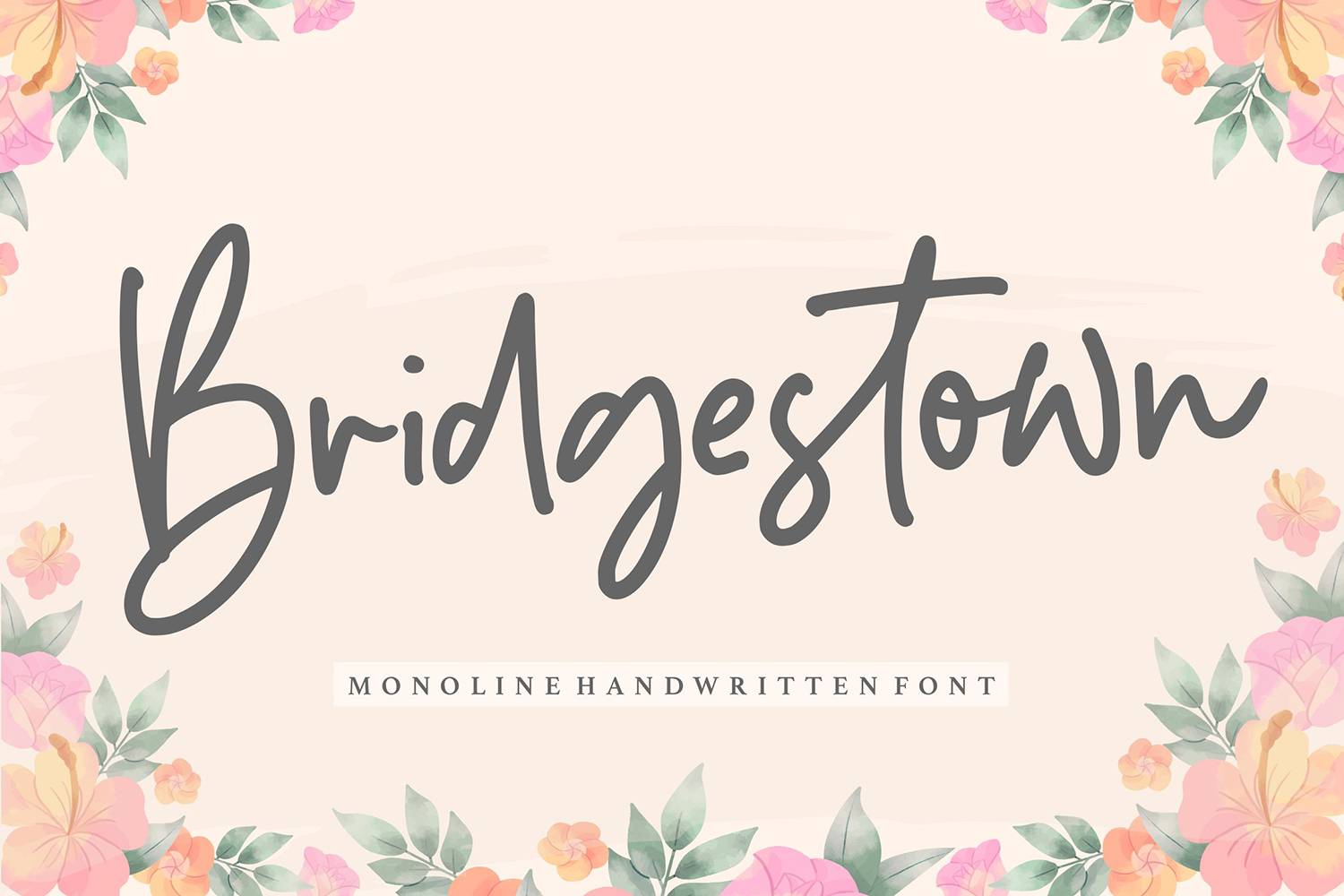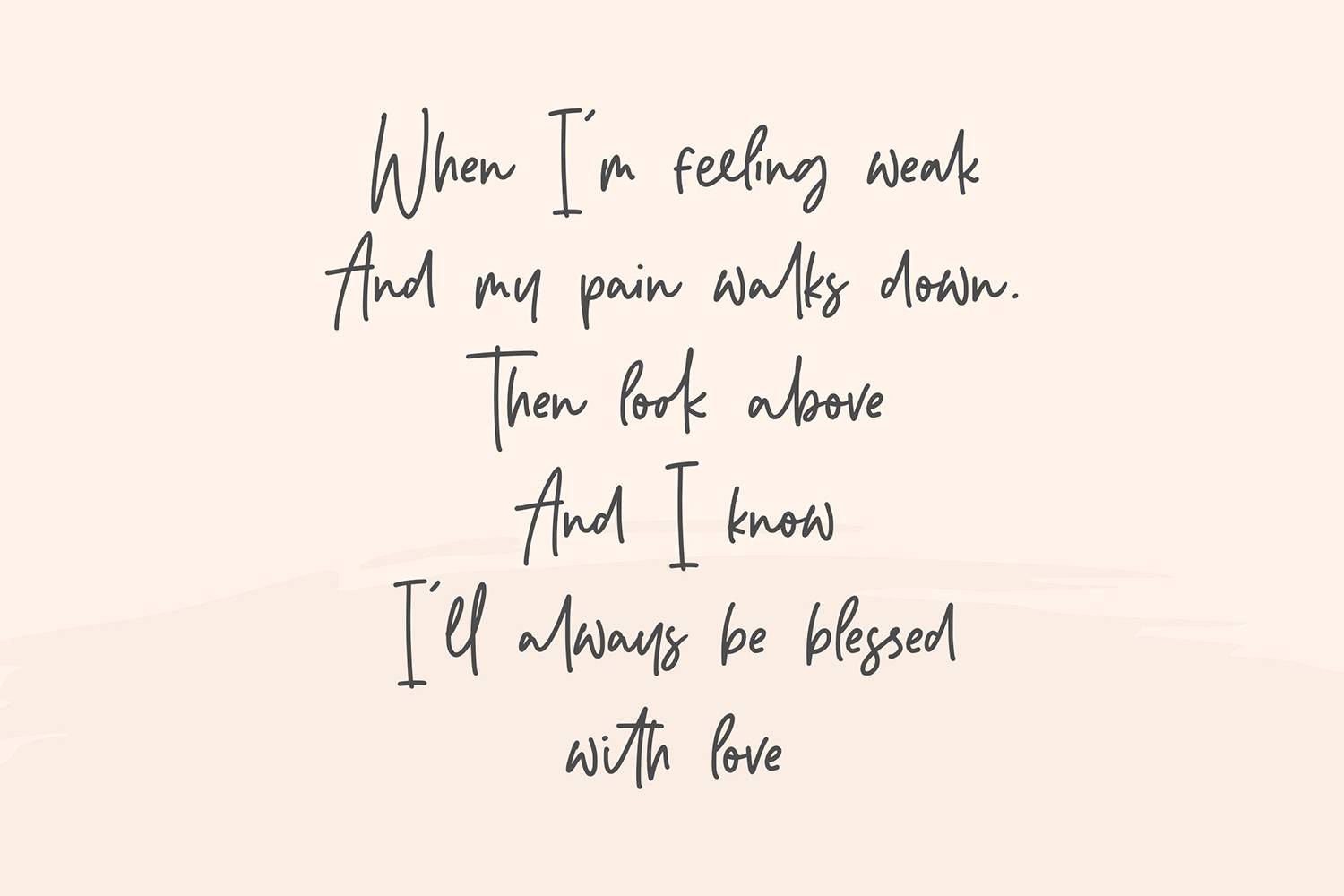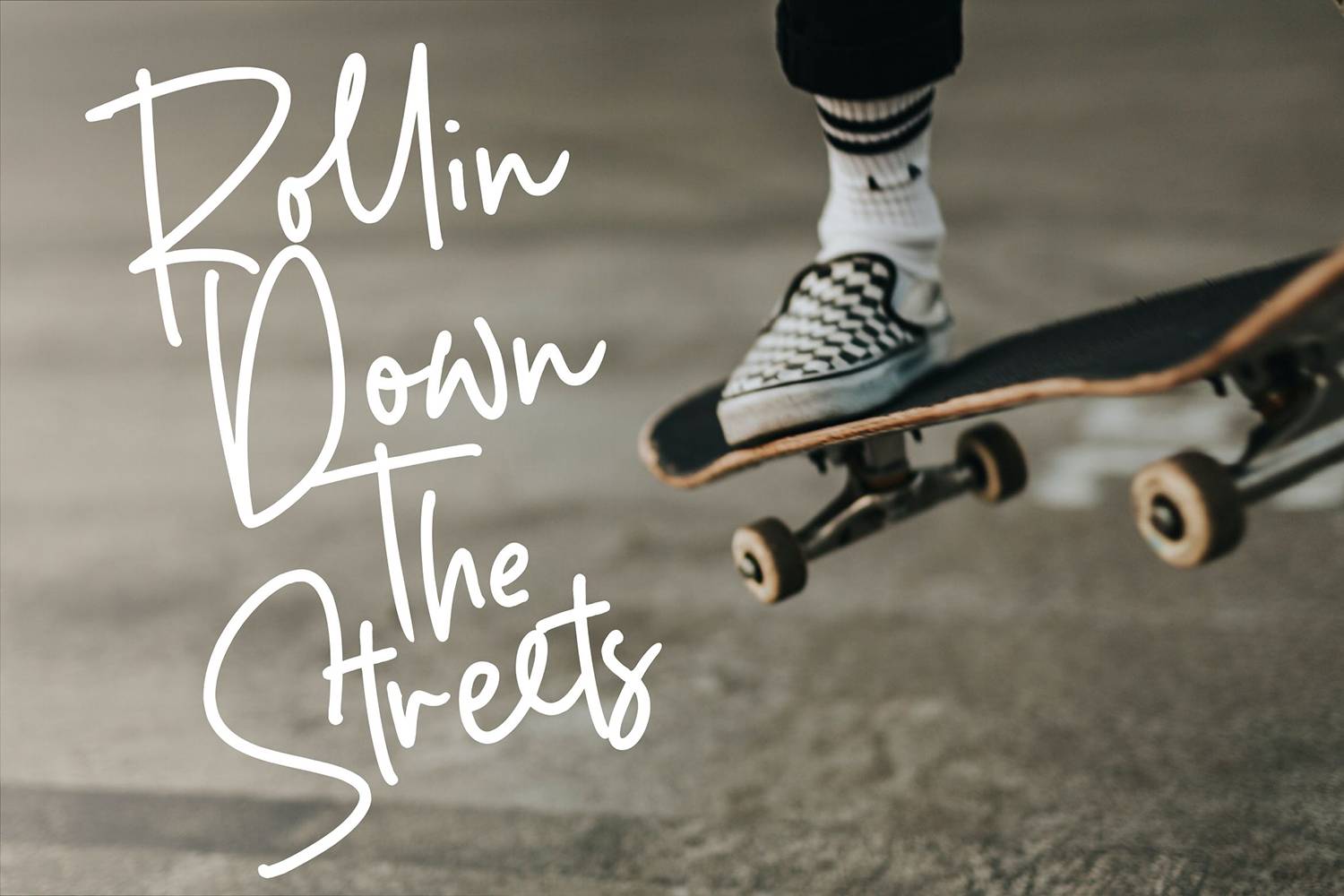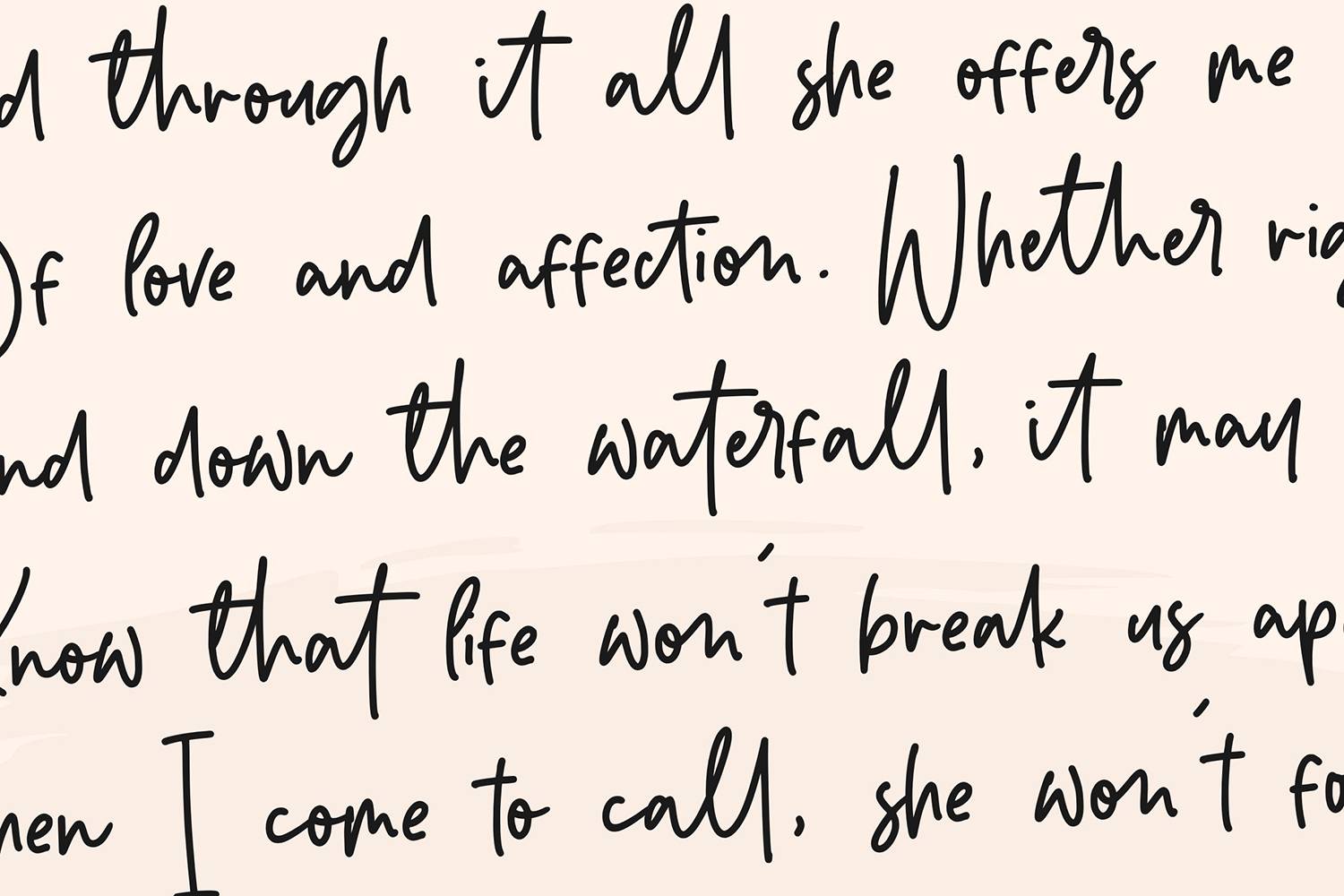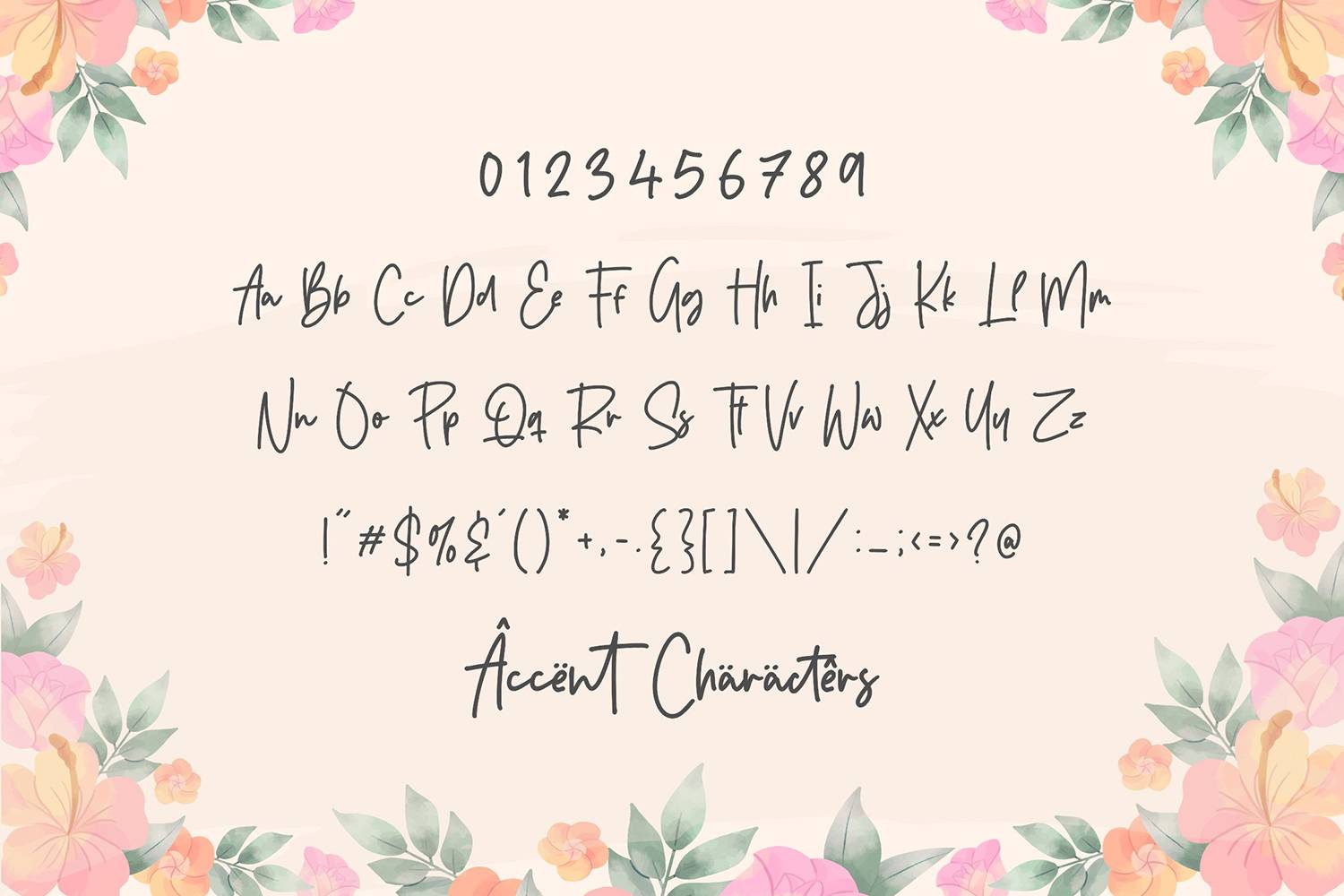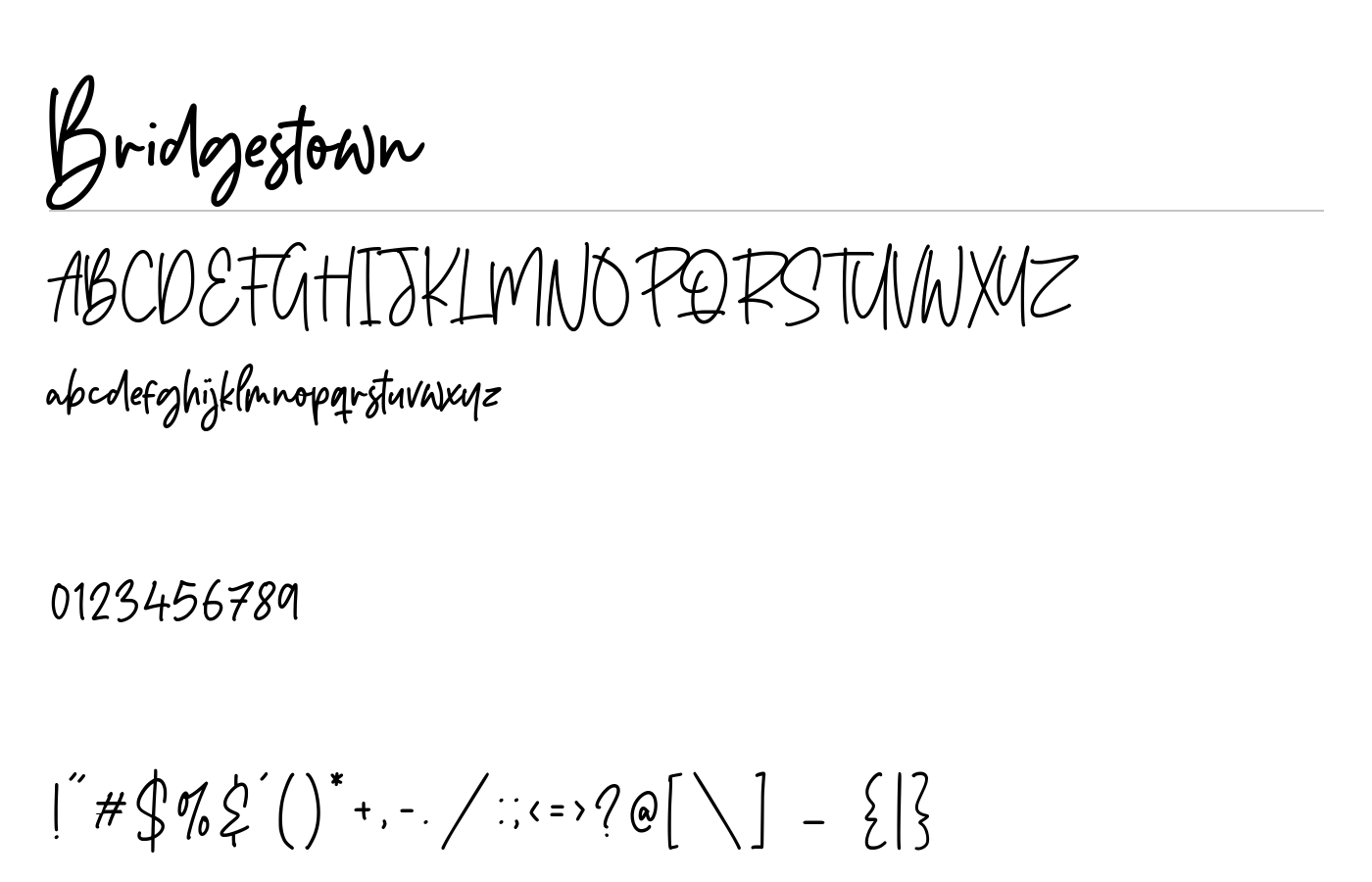
Bridgestown is a casual, handwritten script font with a lively and personal feel. Its thin, slightly uneven strokes and tall, narrow letterforms give it a quirky, approachable style perfect for informal branding, invitations, and creative projects that want to convey friendliness and authenticity. This font works well in designs needing a touch of personality without losing readability.
Bridgestown Font
About Bridgestown Font